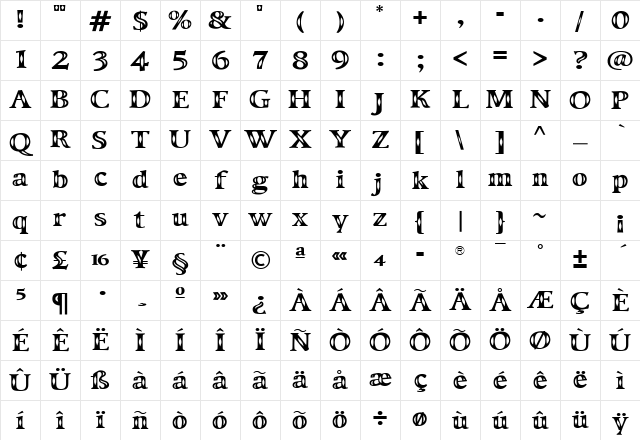
TFHabitat Regular Free Font
TFHabitat Regular
Design Context for TFHabitat
TFHabitat is a composed and adaptable typeface that performs quietly and consistently across a wide range of design contexts.